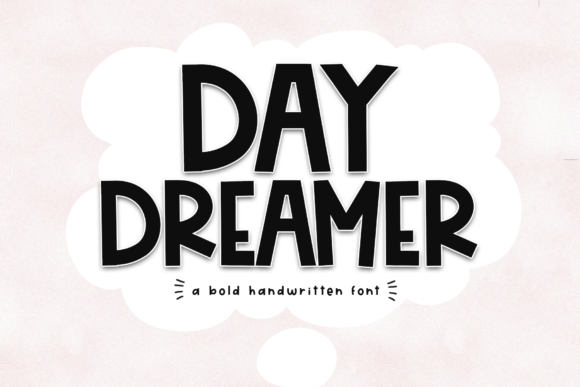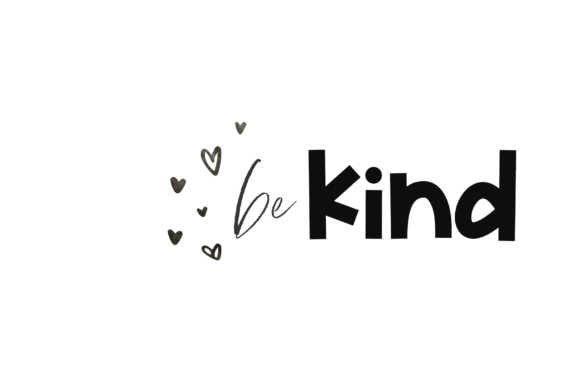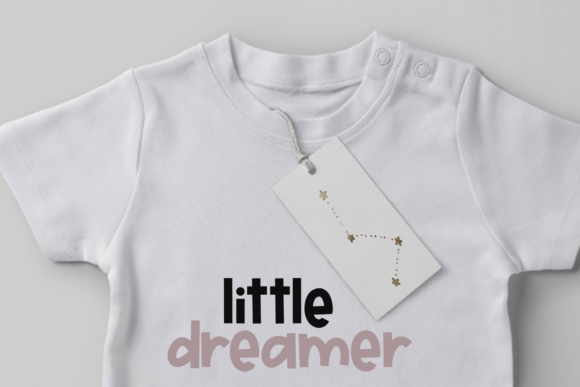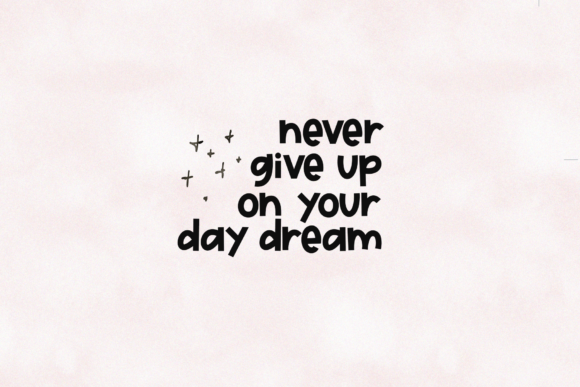
Day Dreamer Font: A Cute Handwritten Font for Cricut & DIY Projects
About the Day Dreamer Font
Presenting Day Dreamer Font, a unique and stylish typeface that will make your work stand out. Day Dreamer is a cute & quirky handwritten font. This font is perfect for quotes, shirts, mugs, headings, logos, invitations and more!
Its playful, slightly irregular character makes it ideal for projects needing a touch of whimsy, such as children’s books, branding for artisanal goods, or social media graphics. It excels in headlines, short text blocks, and logos, adding a friendly and approachable feel. However, its informal nature makes it unsuitable for large bodies of text or applications requiring high readability, like website body copy or UI elements.
Day Dreamer pairs well with clean sans-serif fonts like Open Sans for a balanced contrast, or a more geometric sans-serif like Futura for a modern edge. A classic serif like Garamond can add a touch of sophistication, grounding the font’s playful energy. Avoid pairing it with other script fonts, as this can lead to visual clutter and reduce readability.
The font’s overall personality is best described as cheerful and approachable, conveying a sense of lightheartedness and creativity. It is particularly well-suited to brands targeting a younger demographic or those emphasizing handmade, personalized products.
Day Dreamer Font Usage Examples
Day Dreamer Font Example